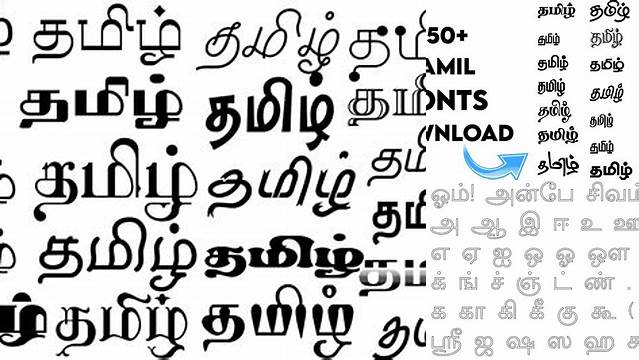
Understanding Tamil Font Styles
Before we jump into the how-tos, let's understand the basics. What exactly are Tamil fonts? Why are they important? And what are some popular styles you should know about? Understanding these fundamentals will help you appreciate the nuances of Tamil typography and make informed choices when selecting fonts for your projects.
The Importance of Tamil Fonts
Tamil fonts are more than just different ways of writing the same characters. They carry cultural significance and can influence the tone and feel of your message. Think of it like choosing the right outfit for an occasion – the font you use can set the mood and make a statement. Whether you're crafting a formal document, a casual social media post, or a creative design, the right Tamil font can make all the difference. Using the right font helps to convey the message effectively and also adds an aesthetic appeal to your content. It also helps to preserve the cultural richness of the Tamil language and script. So, selecting the appropriate font is crucial for effective communication and visual impact.
Consider this: a traditional Tamil font might be perfect for a wedding invitation, while a modern, stylized font could be ideal for a poster promoting a youth event. The key is to match the font to the context and audience. Moreover, different fonts can evoke different emotions and create various impressions on the reader. A classic font might project professionalism and authority, while a playful font can add a touch of fun and informality. Understanding these nuances allows you to communicate more effectively and connect with your audience on a deeper level. Ultimately, choosing the right Tamil font is about more than just aesthetics; it's about enhancing your message and making a lasting impact.
Popular Tamil Font Styles
From classic calligraphy to modern sans-serif, the world of Tamil fonts is incredibly diverse. Some popular styles include:
- Traditional Styles: These fonts often mimic handwritten scripts and are perfect for formal documents, invitations, and religious texts.
- Serif Fonts: Serif fonts have small decorative strokes at the ends of the letters, giving them a classic and elegant look. They are often used in books and newspapers for their readability.
- Sans-Serif Fonts: Sans-serif fonts are clean and modern, without the decorative strokes. They are great for digital displays and contemporary designs.
- Calligraphy Fonts: These fonts are artistic and flowing, perfect for adding a touch of elegance and personality to your work.
- Display Fonts: Display fonts are bold and eye-catching, designed for headlines, posters, and other visual elements.
Each style has its own unique characteristics and applications. For instance, a traditional font like Latha is widely used for its readability and classic appeal, while a modern font like Valluvar might be chosen for its sleek and contemporary design. Exploring these different styles will help you find the perfect font for your specific needs. Don't be afraid to experiment and see how different fonts can transform your text. The goal is to find fonts that not only look good but also enhance the overall message and aesthetic of your content.
When downloading fonts, be sure to check the licensing terms to ensure they are suitable for your intended use. Some fonts may be free for personal use but require a commercial license for business purposes. Additionally, it's a good idea to preview the font before downloading to make sure it meets your needs. Most font websites offer a preview feature that allows you to type in text and see how it looks in the font. This can save you time and ensure you're choosing the right font for your project.
Another option is to use online font generators or font converters, which can help you create custom Tamil fonts or convert existing fonts into different formats. These tools can be particularly useful if you have specific design requirements or need to ensure compatibility across different platforms. Ultimately, the key is to explore your options and find the resources that work best for you. With a little research, you'll discover a wealth of beautiful Tamil fonts that can enhance your writing and design projects.
Copy Pasting Tamil Fonts: The Basics
Now that we've explored different font styles, let's get to the practical part: copy pasting Tamil fonts. The process is generally straightforward, but there are a few things to keep in mind to ensure your text appears correctly across different platforms and applications.
Embedding Fonts in Documents
To ensure your Tamil fonts display correctly for everyone, embedding them in your documents is a smart move. This means the font file is included within the document itself, so recipients don't need to have the font installed on their system. Embedding fonts in documents is a crucial step for ensuring that your Tamil text is displayed correctly on different systems and devices. When you embed fonts, you include the font files within the document itself, so recipients don't need to have the fonts installed on their computers to view the text as intended. This is particularly important when sharing documents with others who may not have the same fonts installed as you do. The process for embedding fonts varies depending on the software you're using. In Microsoft Word, for example, you can embed fonts by going to File > Options > Save and checking the